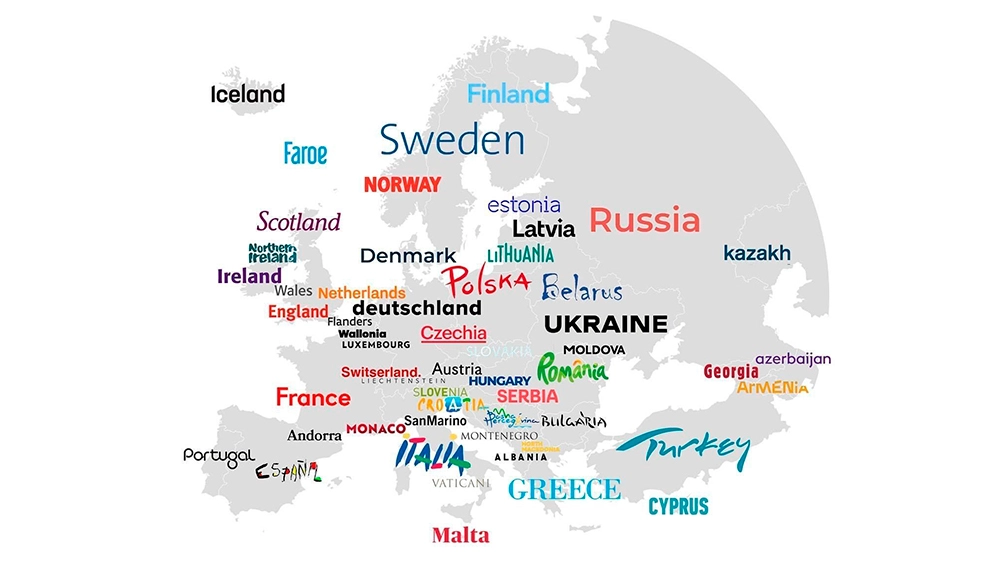
Intriguing maps show the wild fonts used in tourism logos
Making travel plans for 2024? One thing you might not pay much attention to is the font used in the tourism logo for the state or country you might visit. But unconsciously, the type chosen to promote a destination can have an impact on how we think of it. And it can reveal how the place sees itself, or how it wants us to see it.
While some country tourism board logos change with times, fashions or target outbound markets, some have proved to be remarkably enduring. Turespaña, the Spanish tourism board, has used the vibrant Sol de Miró logo created by the artist Joan Miró for 40 years, since 1983. Now, thanks to a trend on Reddit, we have maps that allow us to travel the world virtually and compare the typographical choices of different tourism boards.
The map above, shared by humanasteroid, compares the fonts used in the logos of European tourism boards. These range from the unique hand-drawn lettering of that successful Spain logo (Miró actually reused the lettering from the poster he painted for the 1982 FIFA World Cup) to some unconventional variations in height in Lithuania.
The lettering in the Italian logo is almost as vibrant and expressive as that of Spain, while Greece draws on its classical history with an elegant, stately all-caps serif. Many of the fonts chosen by northern and western European tourism boards look starkly reserved in comparison to those in the east and south. Modern, minimalist, they allow colour and the message itself to do the work.
"Austria didn’t know you could change the default font," one person suggested on Reddit, while somebody thinks Romania's font looks appropriate for a juice brand. And the Belarus logo is unnerving people people with its chiller vibes.
Outside of Europe, the map above gives the same treatment to US state tourism logos. Intriguingly the range of different types of font used is just as varied as across Europe. While many states go for clean sans serifs, several have script fonts, including the wild Wyoming and South Dakota logos, which look like autographs, and the rather excellent new Ohio logo.
There are several novel ideas for 'O's. Wisconsin uses the shape of the state itself, Illinois goes for a map location icon and Iowa's 'O' is, er, an empty parentheses. Perhaps as we might expect, Mississippi and Louisiana have the most elaborate choices of font, and California's choice also seems quite representative.
But Hawaii, is that a modified Papyrus font we see? you must have really liked Avatar. Alaska's logo also looks like it might have been taken from a film poster with its gradient colouring (someone's more uncharitably compared it to Windows 98 clip art). And the map raises plenty of other questions. Why does Utah read 'Litah'? Why did Minnesota go for all-caps apart from the 'e'? And why does Pennsylvania look like a dairy brand?
Now I'd like to see similar maps for the whole word. The nearest thing I can recall is the series of maps above, which were shared on Reddit a few years back. They don't isolate the fonts but focus on the entire tourism logo (use the arrows to browse the maps). For more cartographic gems, see the map of monsters from around the world.